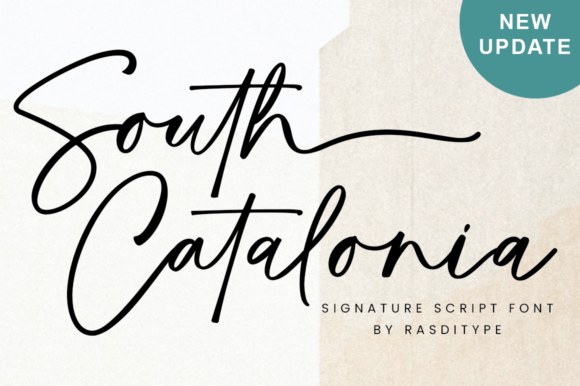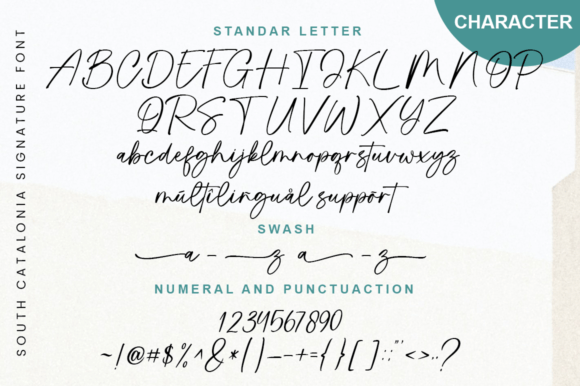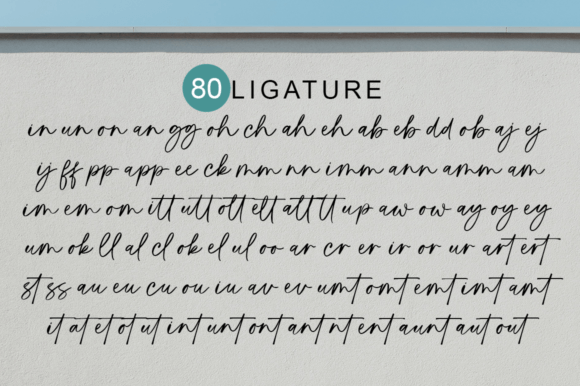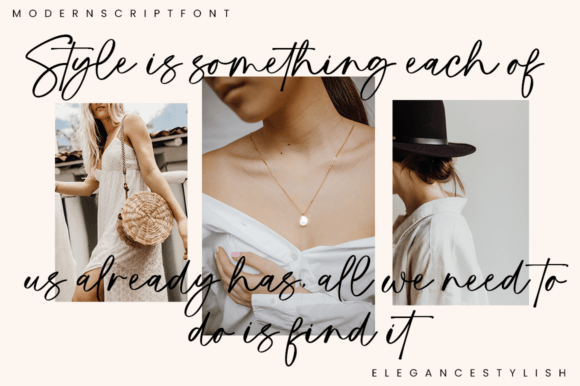
South Catalonia Font
About the South Catalonia Font
Let us introduce you to South Catalonia Font, where timeless design meets modern craftsmanship. South Catalonia is a beautiful handwritten font ideal for logos, wedding stationery, photography watermarks, modern websites, and more. Fall in love with its incredibly distinct and timeless style, and use it to create spectacular designs!
This font is PUA encoded, which means you can access all of the glyphs and swashes with ease!
South Catalonia Font Usage Examples
South Catalonia Font Example